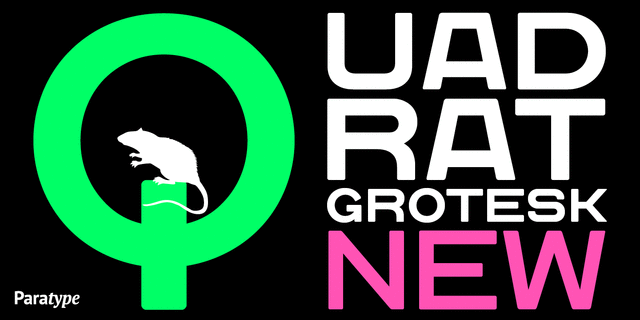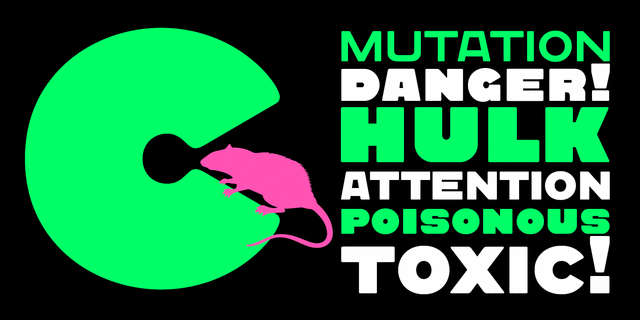
About Quadrat Grotesk NewThe font was designed in 2004 by Vladimir Pavlikov and licensed by ParaType. It is a new version of popular type by the same author. Letters of the new version in contradistinction to the old one are clean and have no traces of exploitation. Due to its rectangular proportions Quadrat Grotesk New is extremely readable in small sizes and can be successfully used in web pages and in documents with long lists where critical aspect is a number of lines rather then the length of a line.
Associations for font family Quadrat Grotesk NewTypeface personality and character:
traditional, stable, accurate, convincing, strong, serious, significant, reputable, independent, responsible, static, solid, technical, steel, square, authoritative, formidable, reliable, manly, self-assured, durable, simple, severe, industrial, high-quality, flat, crisp, mandatory, good quality, nostalgic, military, army, iron, old-fashioned, craft brewed, tough, ambitious, urbanistic, engineering, schematic, workman, Vintage, cinematic, chopped, splashy, notable, heavy, dense, monumental, powerful, black, close-fitting, bright, active
tool, machine tool, steam locomotive, factory, metallurgy, building, port, truck, cinema, safe, coin, weapons, ammunition, equipment, excavator, tank, industry, fitness equipment, army, repairs, aviation, aircraft, security, protection, airsoft, construction, blockbuster, thriller, action, footwear, brick, coworking, urban studies, engineer, Barbershop, workman, car, railway, clock, selfie, trucker, steel-maker, architecture Typeface associated with age: